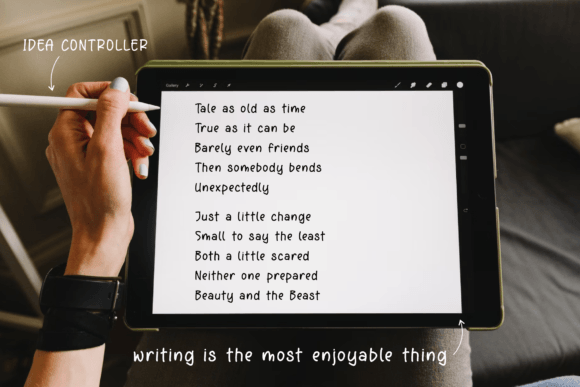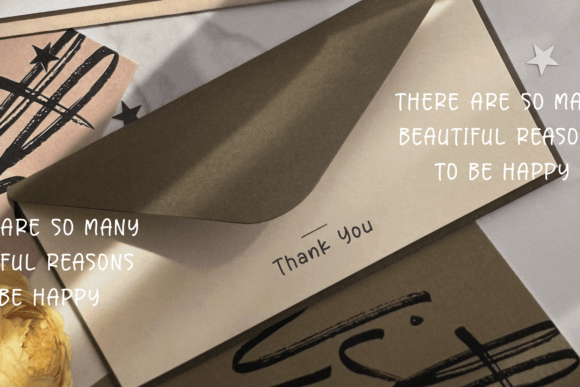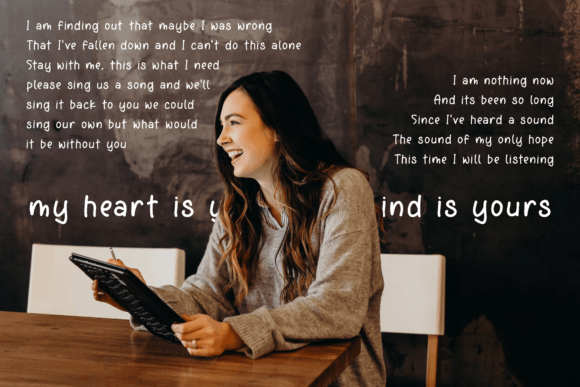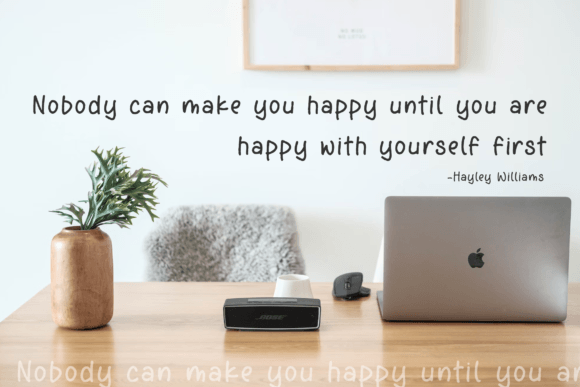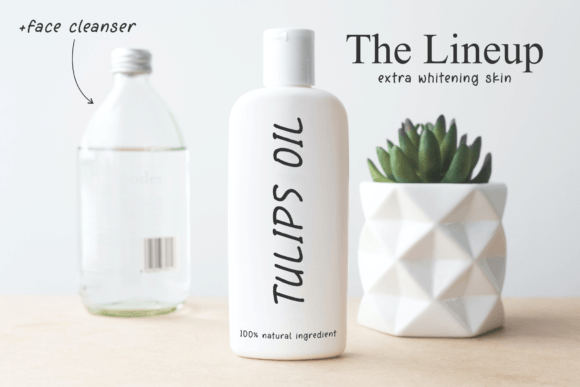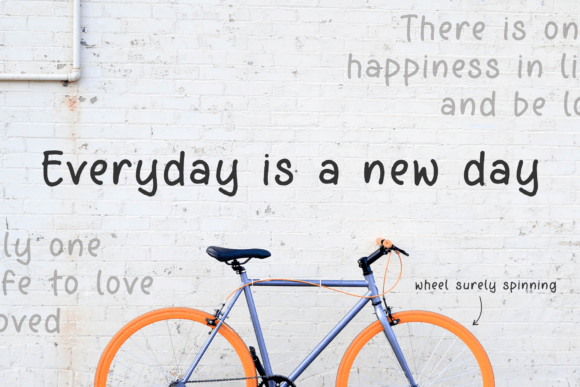
Introduction to Kinderson Notes Font
Have you ever sat down with a cup of coffee, pen in hand, and let the words flow onto the page? It’s a moment of pure creativity, where the world slows down and all that matters is the story unfolding before you. This is the essence of the Kinderson Notes Font, a beautiful handwritten script that captures the essence of handwritten notes.
As designers, we’re always on the lookout for unique design resources that can elevate our creative projects. The Kinderson Notes Font is a valuable addition to any designer’s toolkit, offering a high-quality, elegant script that’s perfect for a wide range of applications. From logos and branding projects to homeware designs and product packaging, this font is a must-have for any design enthusiast.
Key Features of Kinderson Notes Font
- High-quality, unique handwritten font perfect for creative projects
- Comes with a transparent background, allowing for seamless integration with any design
- Unique characteristics include subtle texture and imperfections, giving it a natural, handwritten feel
- Perfect for use in various design projects, including invitations, posters, and digital art
Honest Review: Kinderson Notes Font
I recently had the opportunity to try out the Kinderson Notes Font, and I must say it’s a great addition to any designer’s toolkit. This free download is perfect for creative projects where you need a clean, simple font to convey your message.
- ✨ High quality: The font is crisp and clear, making it perfect for print and digital designs.
- ✨ Transparent background: This feature allows you to easily customize the font to fit your design needs.
- ✨ Versatile: The Kinderson Notes Font is suitable for a wide range of design projects, from business cards to blog posts.
- ⚠️ Limited customization options: While the font is high quality, it’s not overly customizable, which may be a drawback for some designers.
- ⚠️ Not ideal for complex typography: If you’re working on a project that requires intricate typography, you may want to consider a more specialized font.
Overall, I’m impressed with the Kinderson Notes Font. It’s a solid design resource that’s perfect for designers who need a simple, high-quality font for their creative projects.
Tips for Getting the Most Out of Kinderson Notes Font
To get the most out of the Kinderson Notes Font, use it in conjunction with other high-quality design resources, such as graphics and images. Experiment with different font sizes, colors, and arrangements to create visually appealing designs.
The Kinderson Notes Font is ideal for a wide range of creative projects, including blog posts, social media graphics, presentations, and documents. Its versatility and high quality make it a valuable design resource for designers and non-designers alike.
What is the recommended font size for the Kinderson Notes Font?
The recommended font size for the Kinderson Notes Font is between 12-24 points, depending on the design project. It’s essential to experiment with different font sizes to achieve the desired visual effect. The high quality of the Kinderson Notes Font ensures that it will look great at various font sizes.